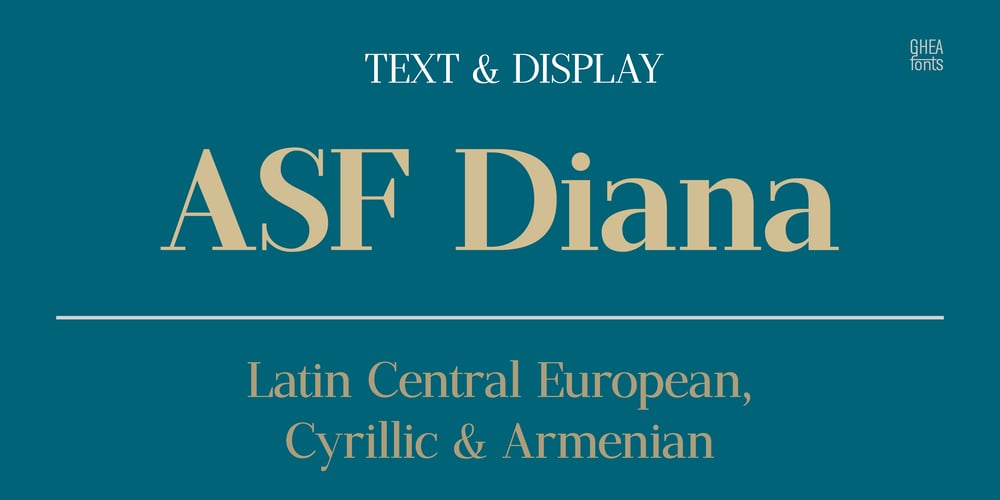
ASF Diana
ASF Diana font
ASF Diana Font Family was designed by Angella Poghosova and published by Edik Ghabuzyan. ASF Diana contains 10 styles and family package options. ASF Diana is a Serif family font. It has 5 upright weights and their Italics and supports Latin, Armenian and Cyrillic alphabet systems.The weights from Regular to Bold and their Italics can be used as text fonts. ASF Diana can be used as Display fonts too. It is an easily readable two side serif font and the eyes don’t get tired while reading. ASF Diana has a contrast style and at the same time is quite bright and clear.